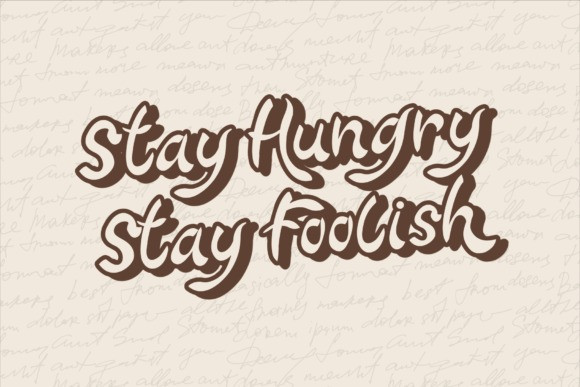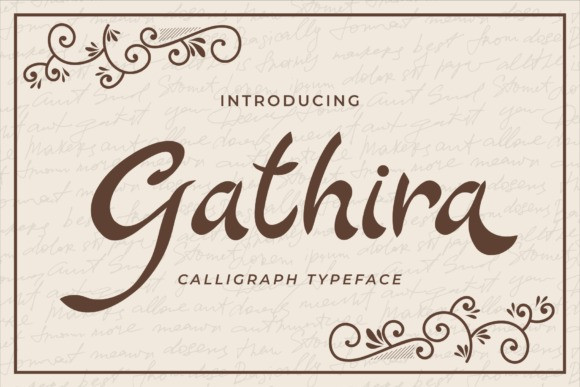
Gathira Font
Gathira Font by HPTypework 16,971 downloads
Gathira Font
Gathira Script Font is an elegant script font with a contemporary atmosphere and impeccable form, inspired by timeless classic calligraphy. Not too thin and not too thick, balanced and varied, this font was designed to enhance the beauty of your projects.